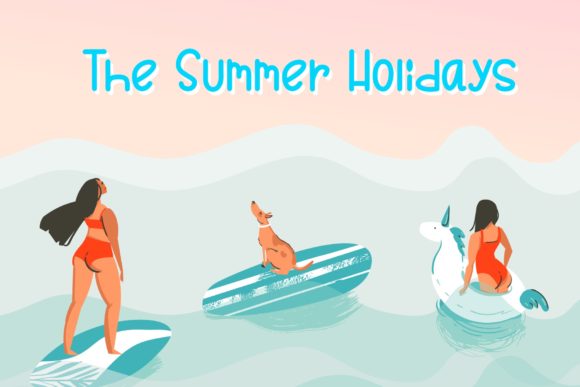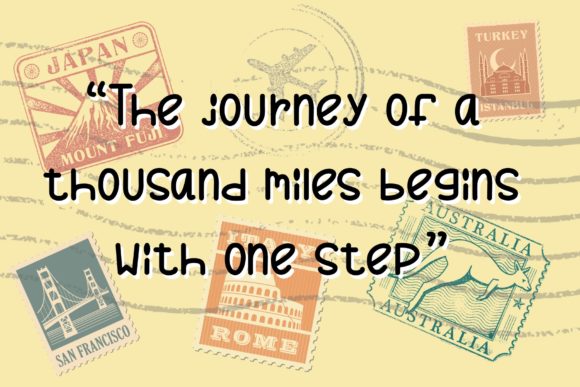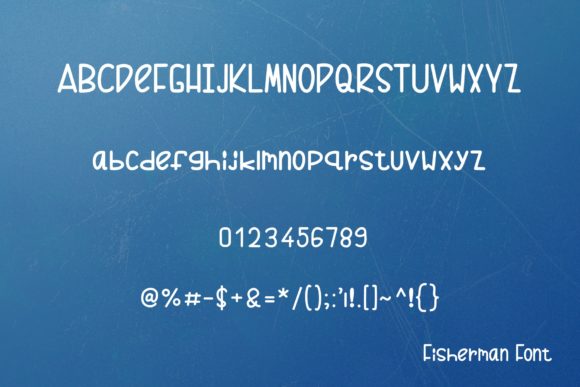
About Fisherman Font
Fisherman is a delightful and charming handwritten font that exudes a friendly and approachable vibe. With its sweet and neat letterforms, Fisherman adds a touch of playfulness and warmth to any design.
The unique and quirky characteristics of Fisherman make it incredibly versatile. It adapts well to various contexts and can be used in a wide range of design projects. Whether you’re creating social media graphics, logos, greeting cards, posters, or any other creative endeavor, Fisherman will bring a sense of whimsy and charm to your work.
The neat and tidy appearance of Fisherman ensures that your text remains legible and easy to read, even at smaller sizes. Its carefully crafted letterforms maintain clarity and precision while still retaining the handwritten charm.
Fisherman’s friendly nature makes it an excellent choice for projects that require a personal and approachable touch. Its quirky flair adds a touch of individuality and sets it apart from more traditional fonts. Whether you’re creating designs for personal or professional purposes, Fisherman will infuse your projects with a sense of joy and lightheartedness.
The adaptability of Fisherman extends to various design contexts, from social media posts to branding materials. Its playful yet readable nature allows it to shine on a wide range of platforms and applications. Fisherman can easily become the go-to font for adding a touch of personality to your designs.
In summary, Fisherman is a sweet, neat, and friendly handwritten font that brings a touch of charm to any design. Its quirky nature and legible letterforms make it a versatile choice for a variety of projects, ensuring that your text remains approachable and engaging. Embrace the whimsy of Fisherman and watch it bring a smile to your audience.